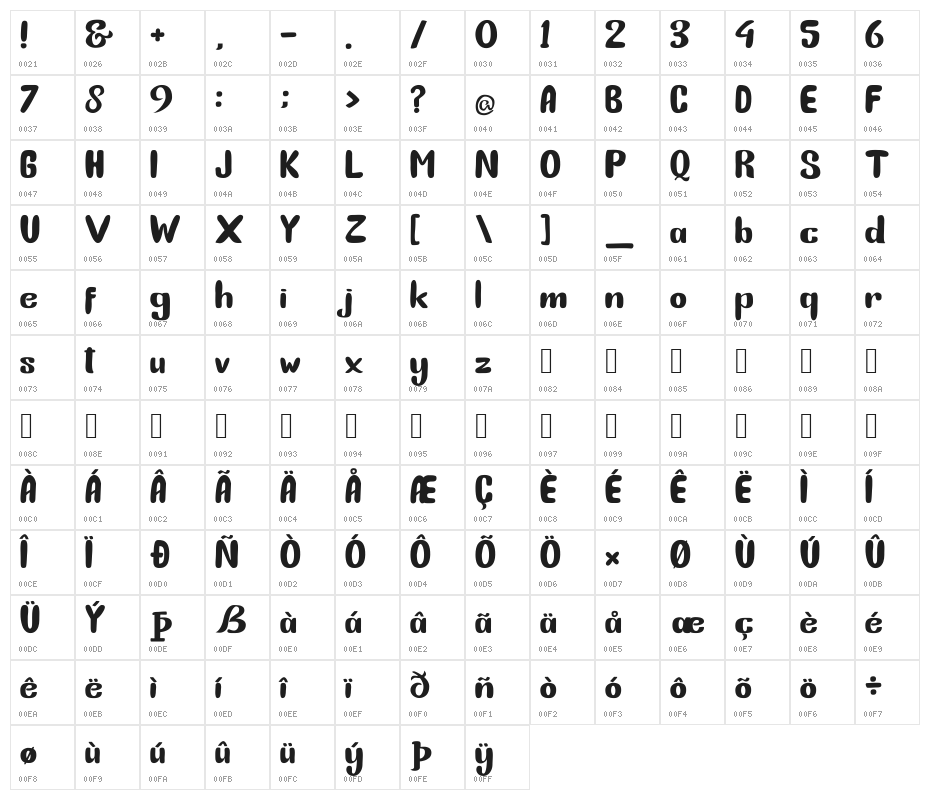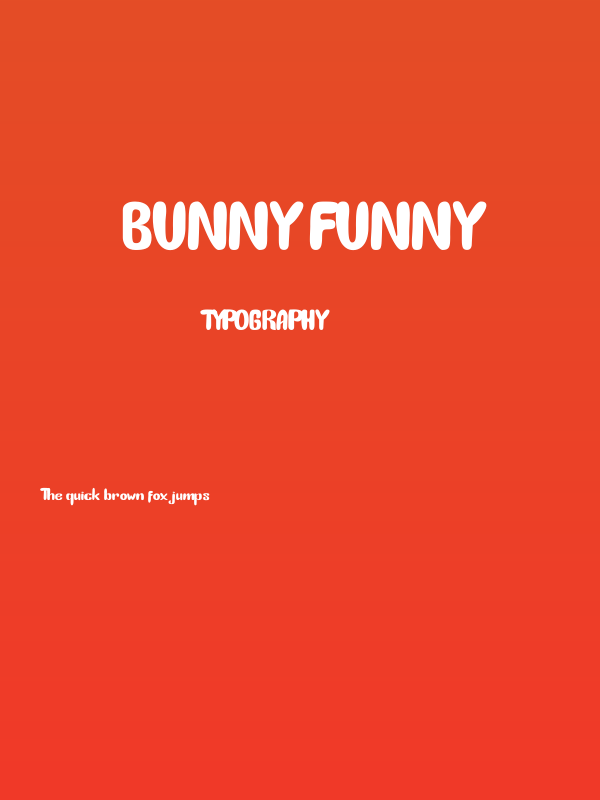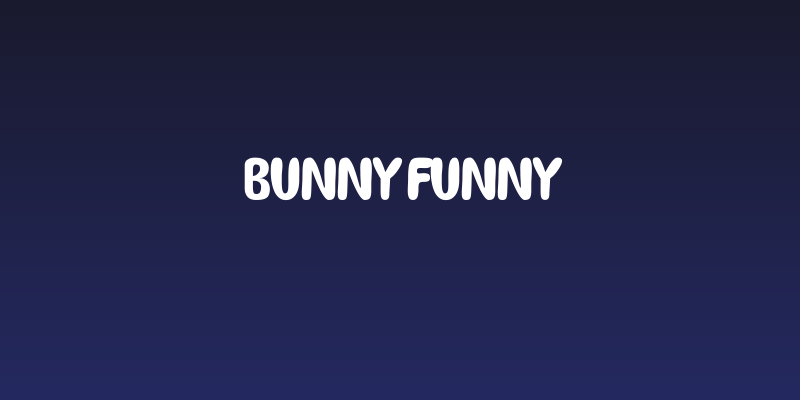
Bunny Funny Font
Bunny Funny Description
This playful and whimsical font features bold, rounded characters with a friendly and approachable style. The letters are thick and have a consistent stroke width, giving them a cartoonish and fun appearance. The uppercase and lowercase letters maintain a uniform look, with slight variations in the curves and loops that add to the font's charm. The numbers and special characters are equally bold and rounded, ensuring a cohesive look throughout. This font is perfect for projects that require a lighthearted and cheerful touch, such as children's books, party invitations, or playful branding.
| Proposed Projects | Children's books, party invitations, playful branding, greeting cards. |